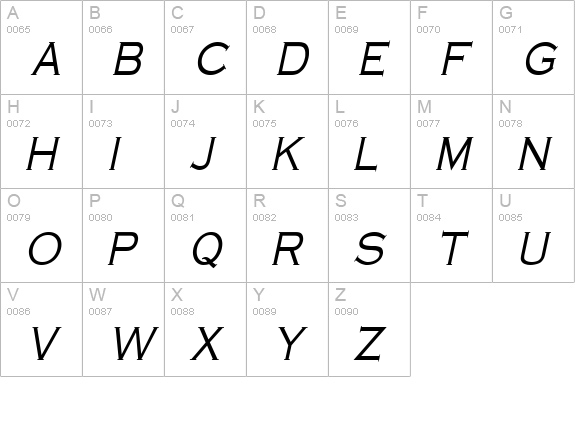
Cobalt Condensed Italic is a distinctive, condensed-width, italic variant in the Cobalt typeface family \xE2\x80\x94 well suited to design and typography projects.
Cobalt Condensed Italic font exudes a sleek and modern vibe with its stylish curves and elegant slant. This versatile typeface is perfect for adding a touch of sophistication to any design project, whether it be for branding, packaging, or editorial purposes. The condensed form of the font allows for efficient use of space while still maintaining readability and impact. What sets Cobalt Condensed Italic font apart is its unique blend of boldness and subtlety, making it a standout choice for those looking to make a statement with their typography. The italicized style adds a touch of flair and dynamism, perfect for conveying a sense of movement and energy. Best of all, Cobalt Condensed Italic font is completely free to download at FontsMarket.com, making it accessible to designers of all levels. Don't miss out on this opportunity to elevate your designs with this striking and contemporary typeface.